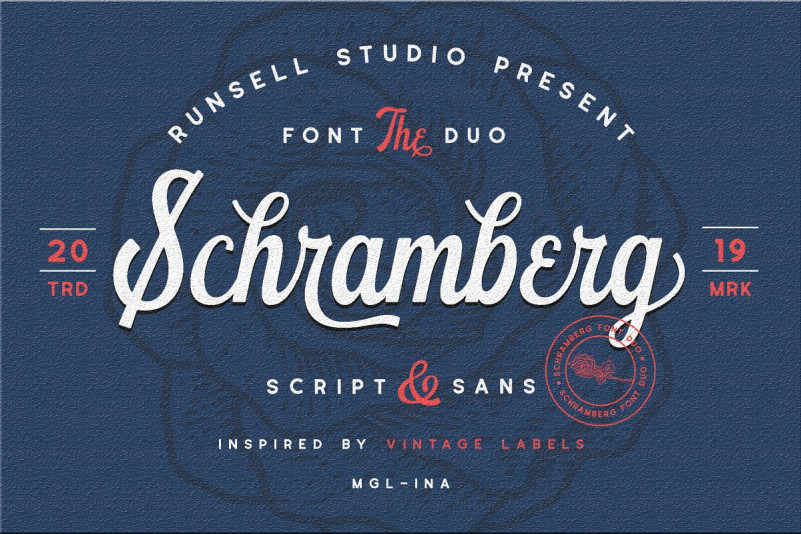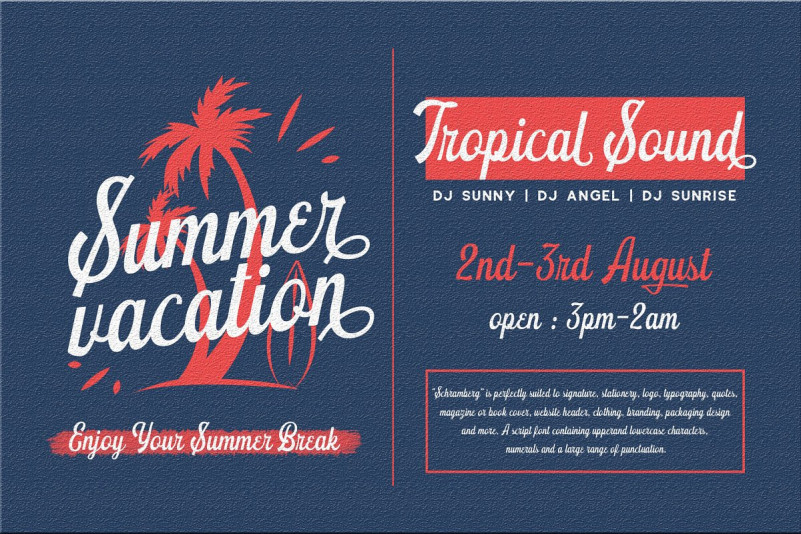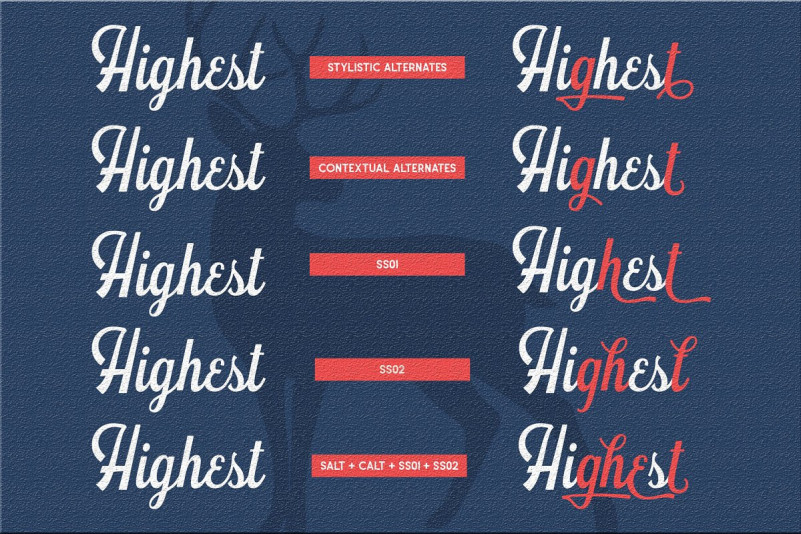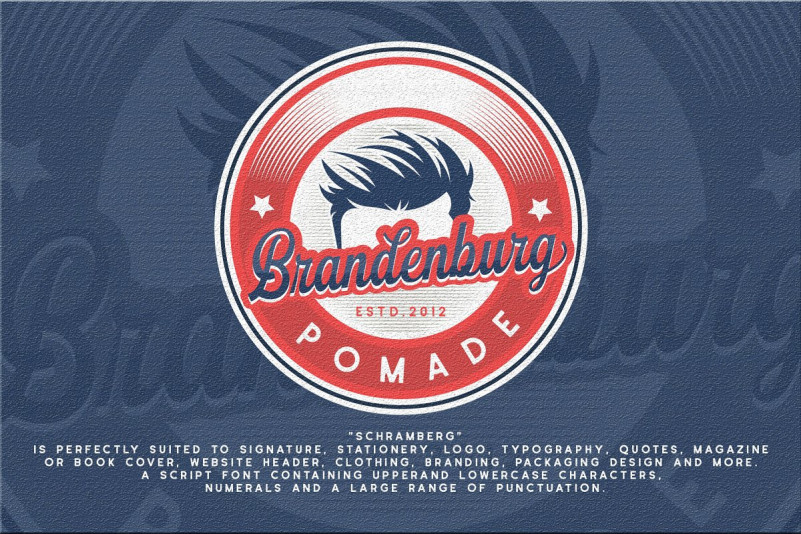
Schramberg Font Duo
Hello Guys! This is a perfect pair of sans-serif and script font by Runsell Studio. This is minimalistic script and modern sans with beautiful ligature and alternate font. Introducing Schramberg Script and Sans. the new typeface inspired by vintage labels and combinating with modern design. Schramberg features with stylistic alternate, contextual alternate and stylistic set. This font come with 2 style, script and sans serif to mix and match your vintage design, t-shirt, logo, labels, badges, posters and etc.